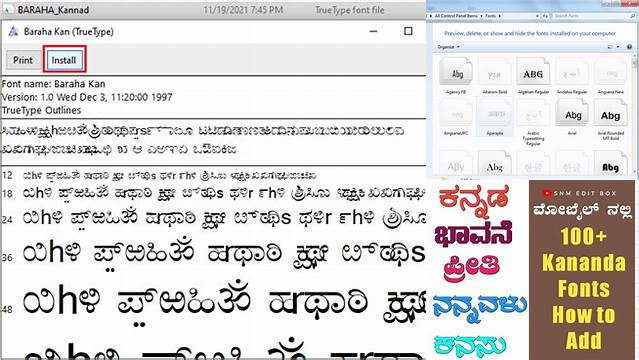
Get Kannada Fonts For MS Word 2026: Easy Download Guide
Welcome, everyone! If you're here, chances are you're looking to jazz up your MS Word documents with some beautiful Kannada fonts. You've come to the right place! This guide is your one-stop shop for downloading Kannada fonts for MS Word 2026, ensuring your documents look fantastic. We'll cover everything from finding the best fonts to installing and using them seamlessly. So, buckle up, and let's dive in!
1. Understanding the Need for Kannada Fonts in MS Word 2026
Alright, let's get real. Why even bother with Kannada fonts in MS Word 2026? Well, if you're working on anything involving the Kannada language – be it personal letters, official documents, creative projects, or academic papers – you absolutely need the right fonts. The default fonts on your computer might not always support Kannada characters, leading to those dreaded boxes or gibberish characters that nobody can read. Having dedicated Kannada fonts ensures your text displays correctly, allowing your message to come across clearly and professionally. Think of it like this: you wouldn't use blurry photos in a presentation, right? Same goes for your text. Using the appropriate fonts is about readability, communication, and showing respect for the language. It's about making sure your content is accessible and visually appealing to your target audience. And trust me, using the right fonts elevates the entire aesthetic. It gives your documents a polished look and makes them more engaging. So, whether you are crafting a resume, writing a story, or creating a presentation, downloading Kannada fonts for MS Word 2026 is a must.
7. Selecting the Best Kannada Fonts for Different Document Types
Choosing the right Kannada font can significantly impact the overall look and feel of your documents. Not all fonts are created equal, and different fonts are better suited for various purposes. For formal documents, such as official letters, academic papers, or legal documents, readability is key. Opt for clean, clear, and professional fonts. Fonts like Nudi and Bharathi are excellent choices. These fonts are designed for readability and are widely used in official Kannada publications. They have a traditional aesthetic, which suits formal contexts. For creative projects, such as posters, flyers, or invitations, you can experiment with more decorative and stylized fonts. Fonts like Tunga or fonts from smaller independent foundries often offer more distinctive styles. This can add a unique flair to your designs. For websites or documents that will be read on screens, consider fonts that are optimized for digital display. These fonts are designed with clear and legible characters, even at smaller sizes. When creating content for children or educational materials, select fonts that are clear, simple, and easy to read. Choose fonts with a friendly and approachable aesthetic. The goal is to make the text accessible and engaging for young readers. The best font for your document depends on your specific needs and the message you want to convey. Think about your target audience and the overall aesthetic you are trying to achieve. Consider testing a few fonts and selecting the one that best suits your needs. Remember to prioritize readability and choose fonts that complement your content. This will help you create visually appealing and engaging documents that effectively communicate your message in the Kannada language. Consider the purpose of your document and choose a font that enhances the readability and aesthetic appeal of your content, creating the best experience for your audience.
8. Kannada Font Families and Their Unique Characteristics
Kannada font families offer a diverse range of styles, each with its own unique characteristics. Understanding these differences can help you select the perfect font for your specific needs. Serif fonts, such as Nudi, are characterized by small strokes or "serifs" at the ends of the letter strokes. They are often considered more traditional and formal, making them a good choice for official documents, books, and long-form text. The serifs guide the eye across the page, making the text easier to read in longer passages. Sans-serif fonts, like Bharathi, lack these serifs and have a cleaner, more modern look. They are often preferred for headings, titles, and digital displays, where a simpler appearance is desired. They convey a more contemporary feel. Monospaced fonts are less common in Kannada but can be useful for coding or technical documents. These fonts assign the same width to each character, ensuring neat and organized text, which is useful in particular contexts. Display fonts encompass a wide variety of styles, including script fonts, decorative fonts, and novelty fonts. They are used for headlines, logos, and creative projects where a distinctive look is required. Display fonts can be very eye-catching, but they are often less readable in long paragraphs. Handwriting fonts mimic handwritten styles and are suitable for invitations, greeting cards, or any documents where a personal touch is desired. They are usually more casual and add a more informal touch. Each font family offers a unique character and can evoke different feelings in your readers. Experiment with different styles to find the perfect fit for your project. Consider the mood, the tone, and the specific requirements of your project. The right font family enhances the overall aesthetic and readability of your content, significantly improving the impact of your message.
14. Utilizing Unicode and UTF-8 Encoding for Kannada Text
Understanding Unicode and UTF-8 encoding is essential for handling Kannada text correctly. These technologies ensure that your Kannada characters are displayed accurately across different platforms and software. Unicode is a standard that assigns a unique number to every character, including those in the Kannada script. UTF-8 is a common encoding format that represents Unicode characters using a variable number of bytes. When you save your Kannada documents, ensure that you save them using UTF-8 encoding. This format is the standard and ensures that your characters are displayed correctly. When you create Kannada documents in MS Word, it's usually set to use UTF-8 encoding by default, but it's always a good practice to verify this. You can usually find the encoding settings in the